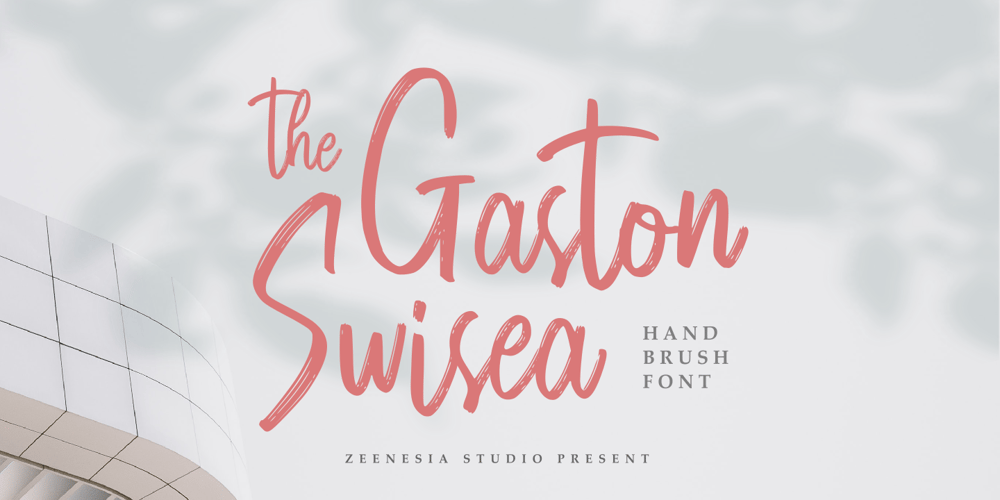
The Gaston Swisea Font Family was designed by Zeenesia Studio and published by Zeenesia Studio. The Gaston Swisea contains 1 styles and family package options. Introducing The Gaston Swisea a Handbrush font with a strong texture character.The Gaston Swisea is made by handwriting directly on the paper with a coarse type brush, to produce a strong and consistent texture.The Gaston Swisea can be used for various projects such as stationery invitations, social media, logos, weddings, branding, graphic design to support the project you want to work on.We hope you enjoy the font, please feel free to comment if you have any thoughts or feedback. Or simply send me a PM or email me at zeenesia@gmail.com.Thanks for purchasing and have fun!